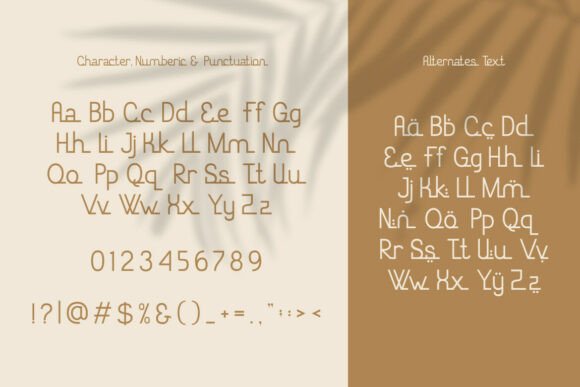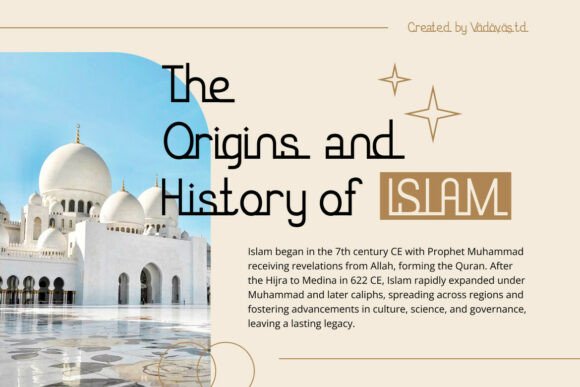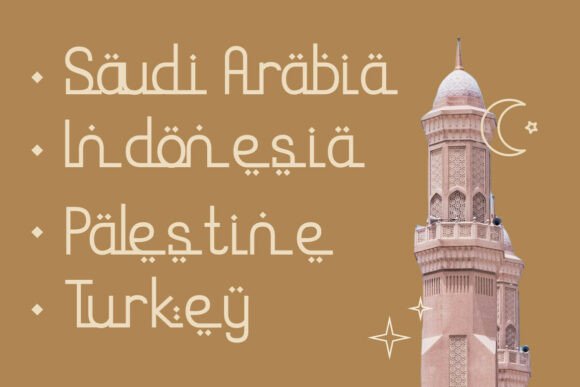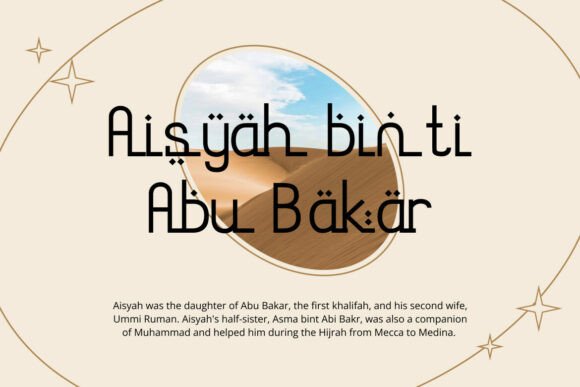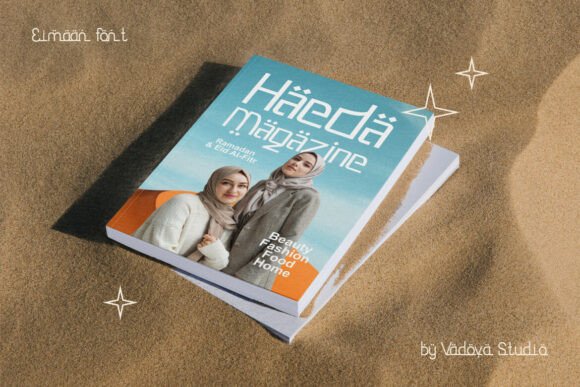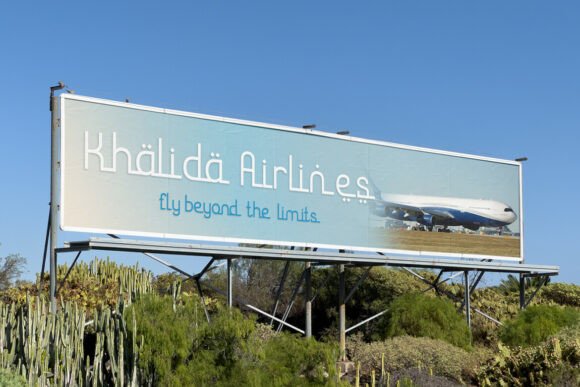
Eimaan Font: The Epitome of Minimalist Islamic Design
In the realm of typography, few fonts have made as significant an impact as Eimaan. This stunning typeface is a masterclass in minimalist Islamic design, boasting clean lines, elegant curves, and a sophisticated aesthetic that is both culturally relevant and visually striking. In this article, we’ll delve into the world of Eimaan Font, exploring its unique features, design philosophy, and best use cases.
The Design Philosophy of Eimaan Font
Eimaan Font is the brainchild of designers who sought to create a typeface that embodies the principles of minimalist design while staying true to Islamic aesthetic traditions. The result is a font that exudes elegance, simplicity, and a deep sense of cultural connection. Eimaan’s design is characterized by:
- Clean, Circular Loops: Eimaan’s circular loops are a defining feature of the font, providing a sense of fluidity and continuity.
- Sharp, Diamond-Shaped Diacritics: The diamond-shaped diacritics add a touch of sophistication and cultural authenticity to the font.
- Generous X-Height: Eimaan’s generous x-height ensures that the font remains clear and legible, even at smaller sizes.
- Simplified Structure: The font’s simplified structure makes it highly versatile and adaptable to various design contexts.
The Aesthetic of Eimaan Font
Eimaan Font is best described as “minimal-luxe,” a term that captures the font’s ability to convey luxury and sophistication through simplicity. This aesthetic is achieved through the careful balance of clean lines, elegant curves, and strategic use of negative space. The result is a font that feels both premium and approachable, making it an excellent choice for designers seeking to create high-end Islamic designs.
Best Use Cases for Eimaan Font
Eimaan Font is an incredibly versatile typeface, suitable for a wide range of design applications. However, its unique features and aesthetic make it particularly well-suited for:
- App Interfaces: Eimaan’s clarity and legibility make it an excellent choice for app interfaces, where clear communication is essential.
- Social Media Quotes: The font’s elegant appearance and cultural authenticity make it perfect for social media quotes, adding a touch of sophistication to inspirational content.
- Modern Islamic Lifestyle Product Packaging: Eimaan’s minimalist-luxe aesthetic makes it an excellent choice for product packaging, where designers seek to convey luxury and cultural relevance.
Why Designers and Crafters Love Eimaan Font
Eimaan Font has quickly become a favorite among designers and crafters, who appreciate its unique blend of minimalist elegance and cultural authenticity. Here are just a few reasons why:
- Cultural Relevance: Eimaan Font is deeply rooted in Islamic design traditions, making it an excellent choice for designers seeking to create culturally relevant content.
- Versatility: The font’s simplicity and elegance make it highly versatile, suitable for a wide range of design applications.
- Legibility: Eimaan’s generous x-height and simplified structure ensure that the font remains clear and legible, even at smaller sizes.
Eimaan Font is a stunning example of minimalist Islamic design, boasting a unique blend of elegance, simplicity, and cultural authenticity. Its versatility, legibility, and sophisticated aesthetic make it an excellent choice for designers and crafters seeking to create high-end Islamic designs. Whether you’re designing app interfaces, social media quotes, or modern Islamic lifestyle product packaging, Eimaan Font is an excellent choice.
With its growing popularity among designers and crafters, Eimaan Font is sure to continue making waves in the world of typography. If you’re looking for a font that embodies the principles of minimalist Islamic design, look no further than Eimaan.